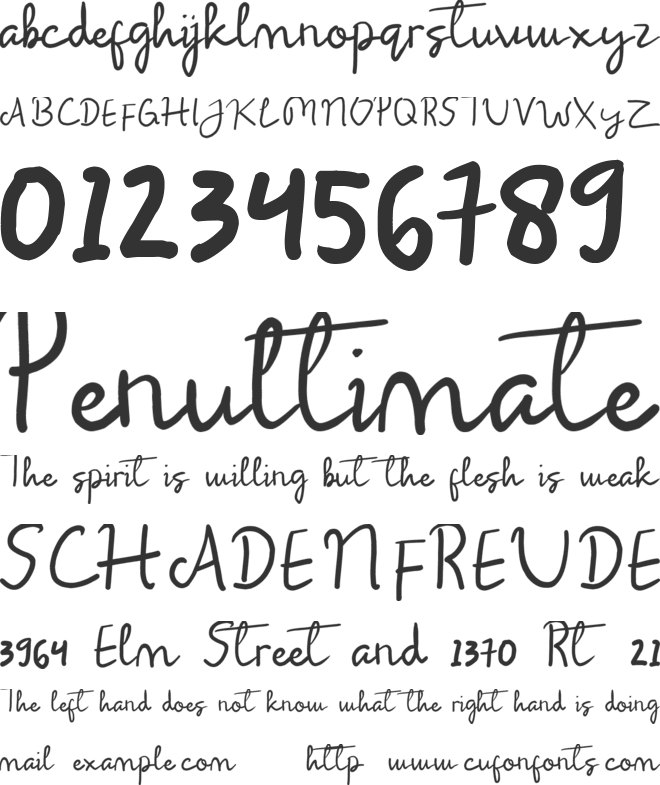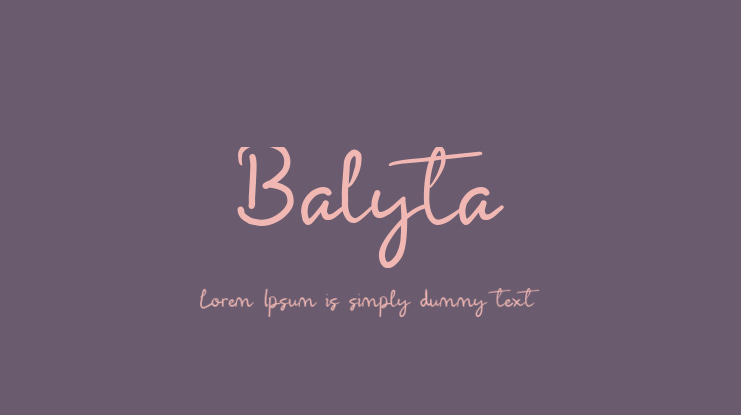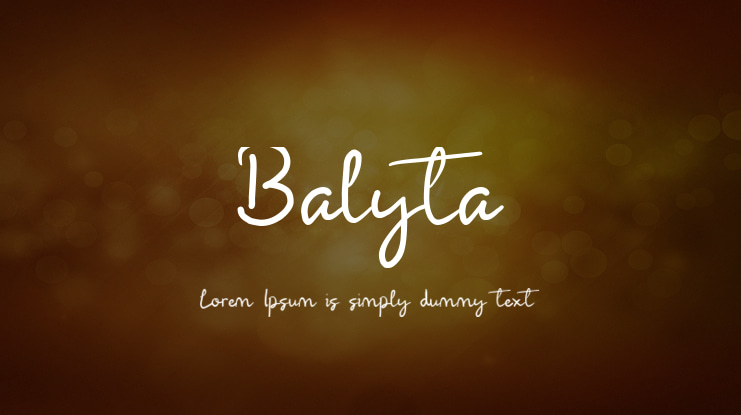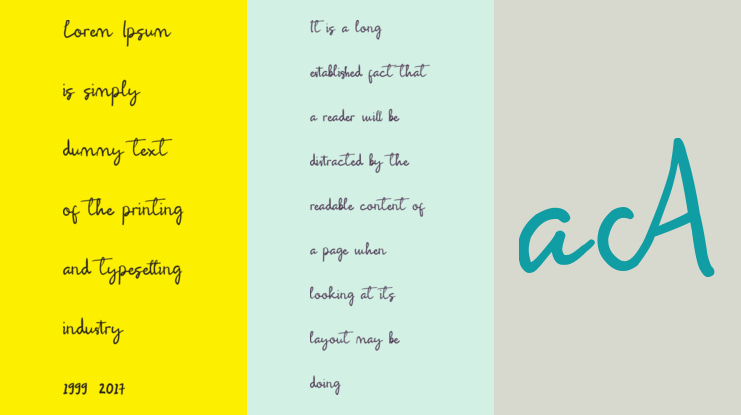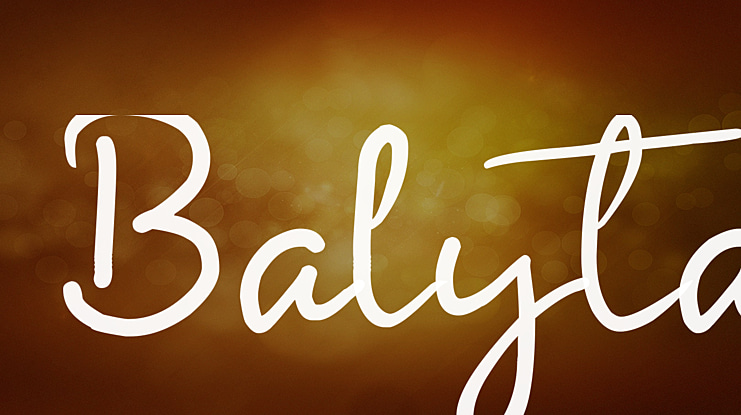
Balyta Font Family
Balyta Handwriten font with elegant and natural handwriting and made professionally using scribbled paper. It is perfect for designs such as logos, promotions, phography, branding, quetes, watermarks, card names, film titles, weddings etc. Hurry download fonts and make your designs more attractive than others.